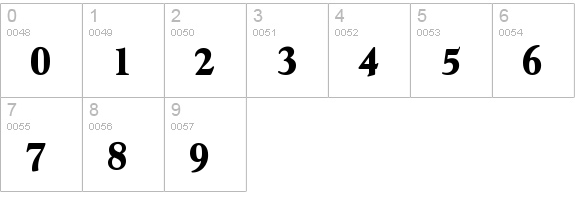
HessOldStyleExtraBold Font Details
HessOldStyleExtraBold font is a timeless and robust typeface that exudes a sense of strength and authority. Its bold and striking appearance makes it perfect for headlines, titles, and other prominent text elements. The classic and elegant design of this font gives any project a touch of sophistication and refinement. What sets HessOldStyleExtraBold apart is its versatility and readability, making it suitable for a wide range of design applications. Whether used in print or digital media, this font commands attention and delivers a clear and impactful message. And the best part? HessOldStyleExtraBold is available for free download at FontsMarket.com. So, designers and creatives can easily access this high-quality font without any cost, making it a valuable addition to their font library. Don't miss out on the opportunity to enhance your designs with the distinctive charm of HessOldStyleExtraBold.